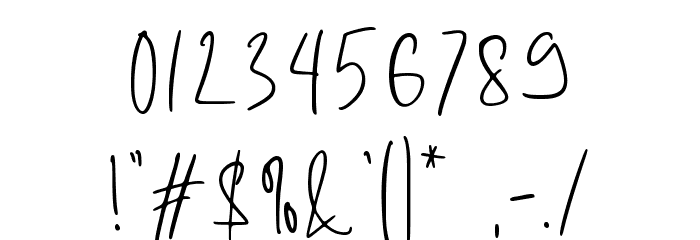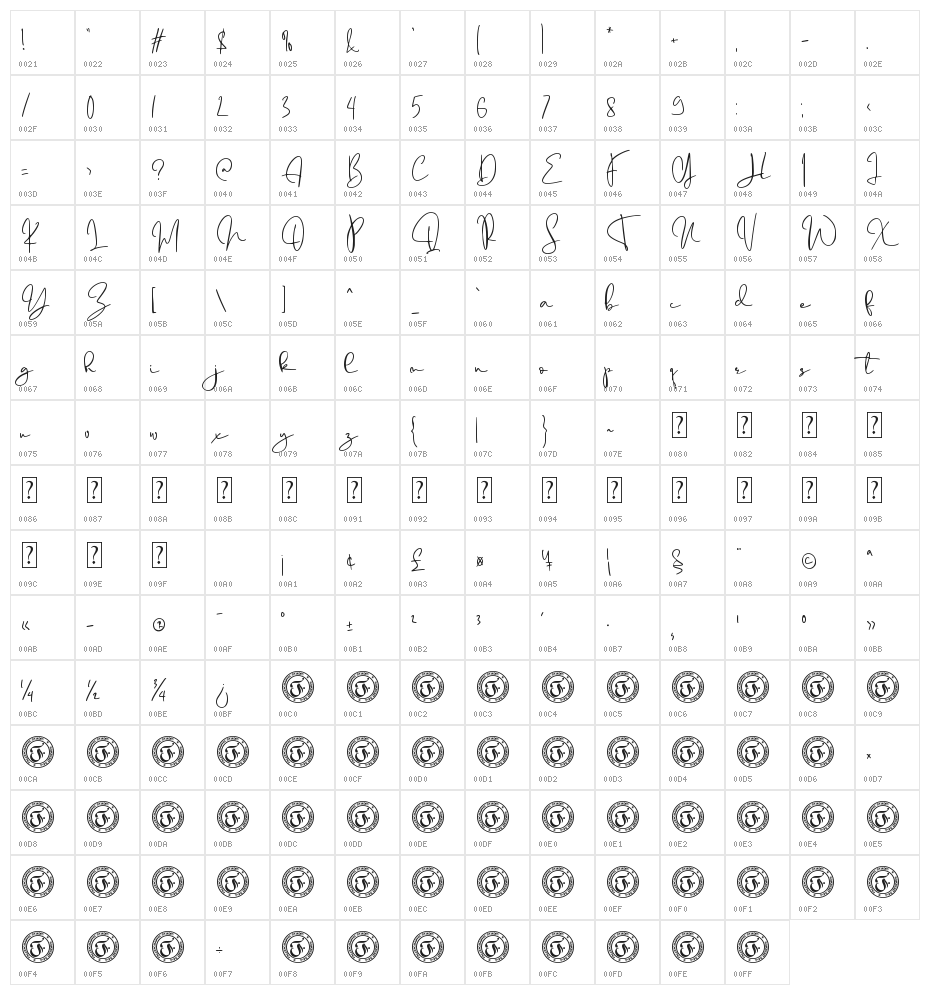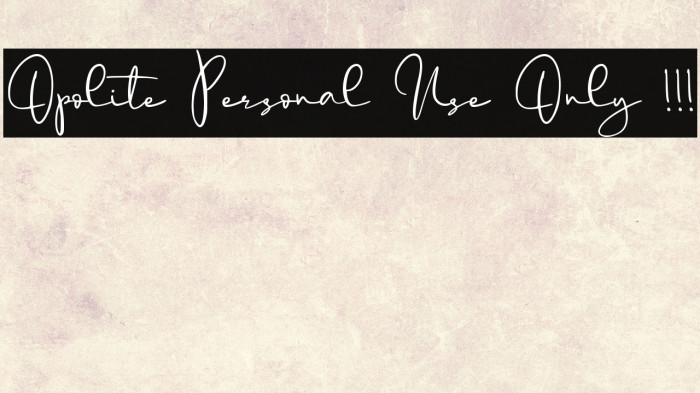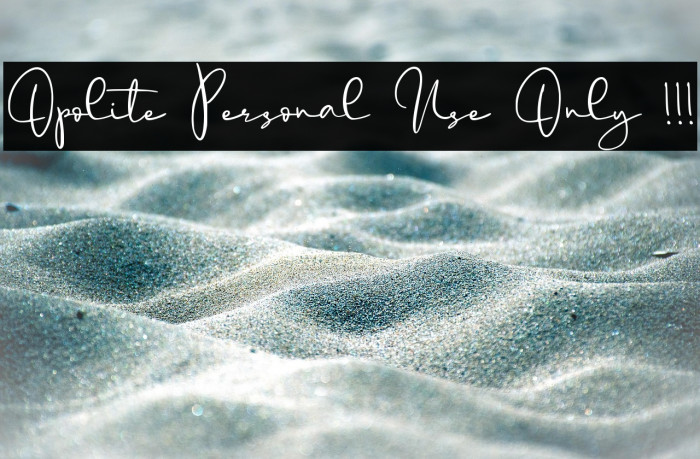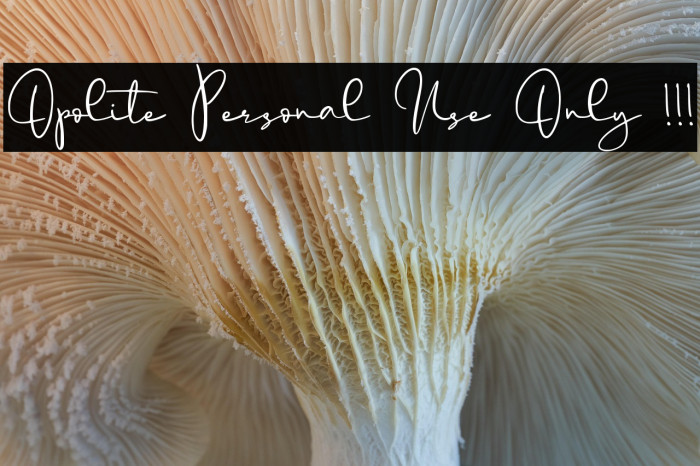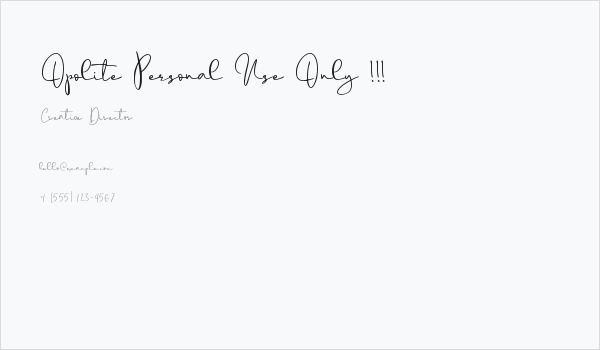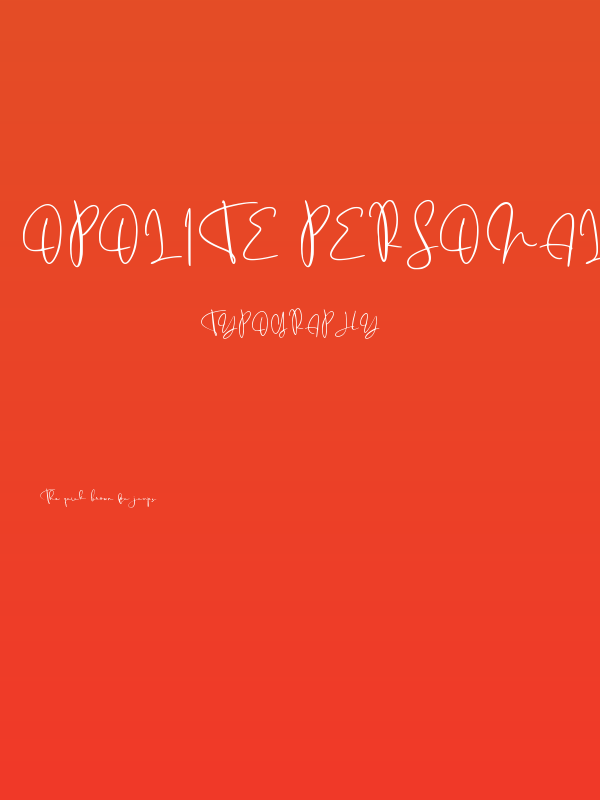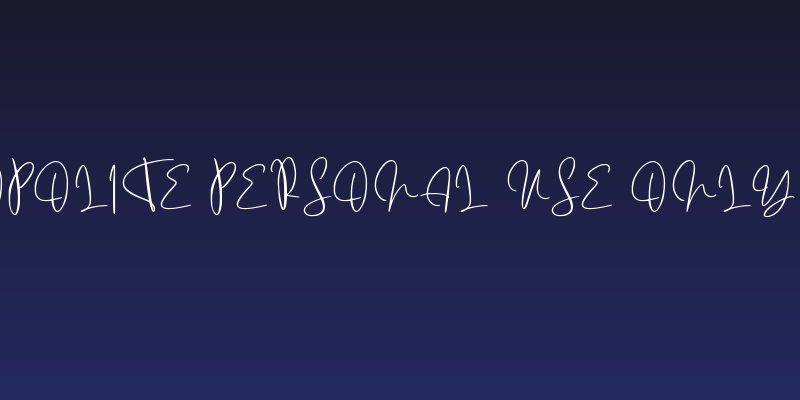
Opolite Personal Use Only !!! Font
Opolite Personal Use Only !!! Description
This font features a playful and elegant handwritten style with a modern twist. The uppercase letters are characterized by their tall, narrow forms and distinctive loops, giving them a unique flair. The lowercase letters maintain a consistent flow with smooth curves and elongated strokes, adding to the font's overall charm. Numbers and special characters are crafted with the same attention to detail, ensuring a cohesive look across all elements. The font's thin lines and graceful connections make it ideal for projects that require a personal touch, such as invitations, greeting cards, and branding materials.
Use CaseLogos, Headlines, Invitations
Proposed ProjectsIdeal for invitations, greeting cards, branding, and personal projects.